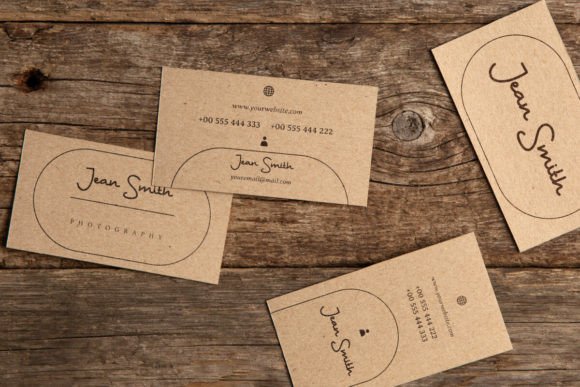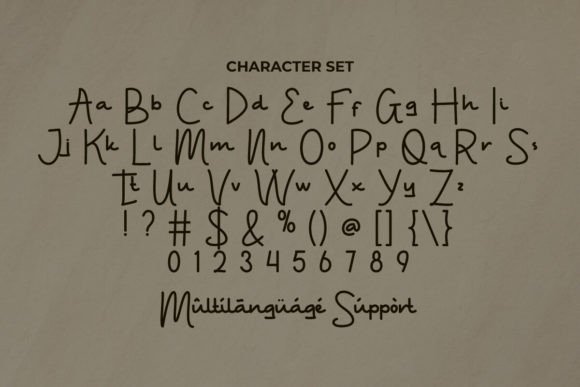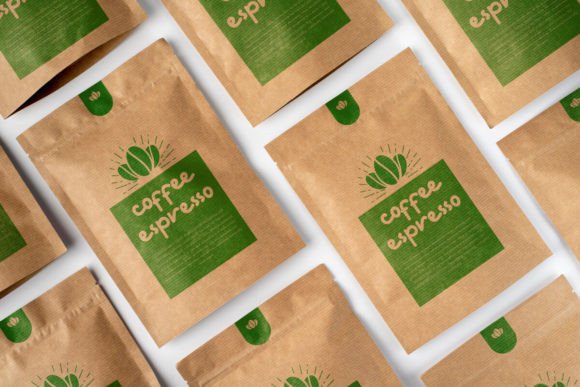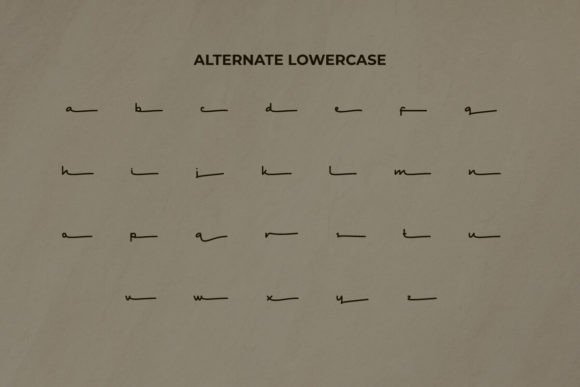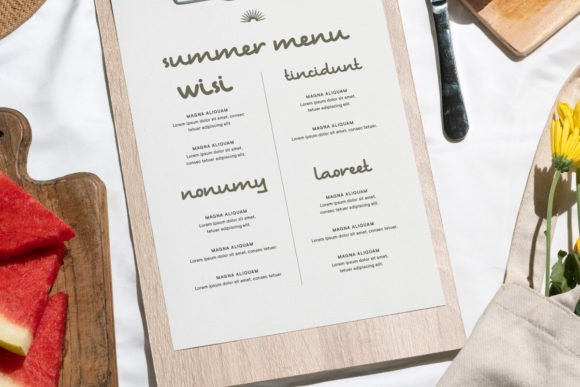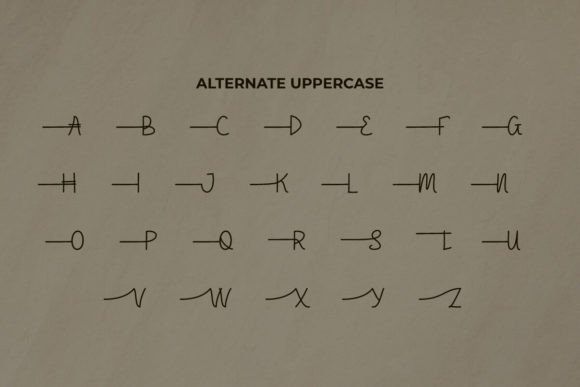
Discover the Elegance of Hashtag Trend Font: A Stylish Handwritten Font
In the world of typography, a font can make all the difference in the aesthetic and feel of your design. For designers and crafters looking for a stylish and elegant touch, Hashtag Trend Font is an excellent choice. Created by CalligraphyFonts.Net, this beautiful handwritten font boasts a clean, monoline style that is sure to elevate your designs.
What is Hashtag Trend Font?
Hashtag Trend Font is a stylish handwritten font characterized by its strong lines and hand-drawn letterforms. This font is designed to bring an informal style and casual feel to your creations, making it perfect for designs that require a relaxed touch. With its clean and elegant monoline style, Hashtag Trend Font is guaranteed to stand out in your designs.
Key Features of Hashtag Trend Font
- Handwritten with a personal touch: Each letterform is carefully hand-drawn, giving the font a unique and personal feel.
- Clean and elegant monoline style: The font features strong lines that create a clean and elegant look, perfect for a wide range of design applications.
- Versatile: Hashtag Trend Font can be used in various design projects, including brand logos, business cards, labels, menus, product packaging, stationery, titles, websites, and more.
- Suitable for various industries: This font is ideal for industries such as boutiques, cafes, event tenants, florists, homeware, photography, restaurants, and many more.
Use Cases for Hashtag Trend Font
The versatility of Hashtag Trend Font makes it suitable for a wide range of design projects. Here are some use cases where this font truly shines:
- Branding and Logo Design: Create a memorable brand logo that stands out with the elegant and stylish feel of Hashtag Trend Font.
- Business Cards and Stationery: Add a touch of elegance to your business cards, letterheads, and other stationery with this beautiful font.
- Packaging Design: Elevate your product packaging with a font that communicates your brand’s personality and style.
- Menus and Signage: For cafes, restaurants, and boutiques, Hashtag Trend Font can add a warm and inviting feel to menus and signage.
- Digital and Print Media: Use this font in your website designs, social media graphics, brochures, and flyers to maintain consistency in your brand’s visual identity.
Why Choose Hashtag Trend Font?
Choosing the right font for your design project can be daunting, but here are a few reasons why Hashtag Trend Font should be at the top of your list:
- Unique and Eye-Catching: Its hand-drawn letterforms and monoline style ensure that your designs will stand out.
- Easy to Read: Despite its elegant feel, Hashtag Trend Font remains highly legible, making it suitable for both headings and body text.
- Customizable: The font’s versatility means you can use it across various design projects and adjust it to fit your brand’s tone and personality.
Hashtag Trend Font by CalligraphyFonts.Net is a stylish and elegant handwritten font that can add a unique touch to your designs. Its clean monoline style, combined with its informal and casual feel, makes it an excellent choice for a wide range of design applications and industries. Whether you’re a designer looking to elevate your projects or a crafter seeking the perfect font for your creations, Hashtag Trend Font is sure to meet your needs and exceed your expectations.